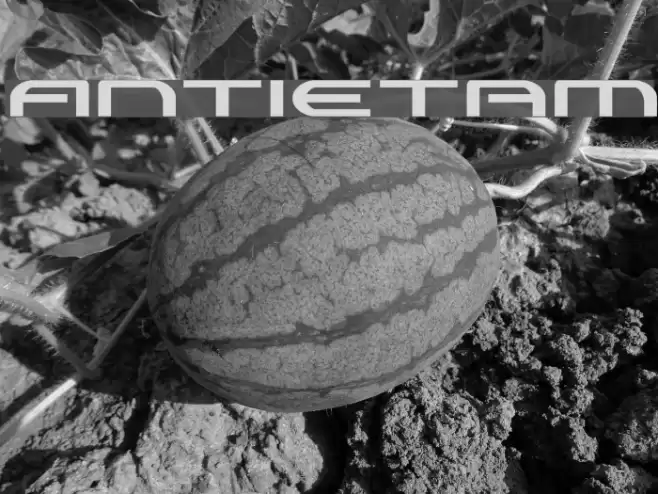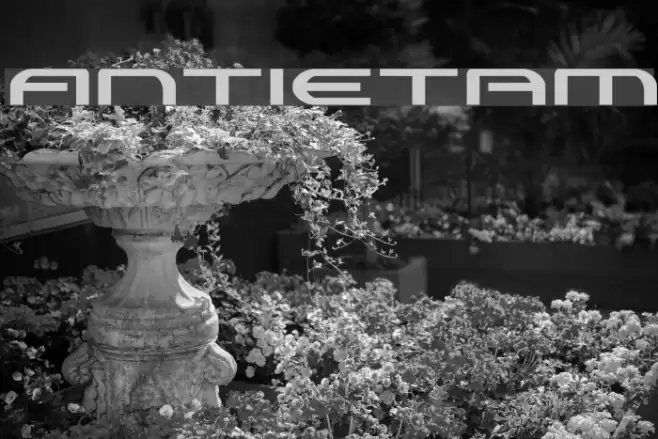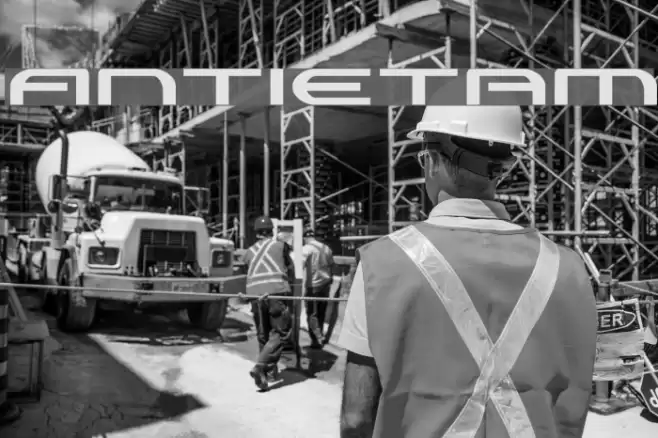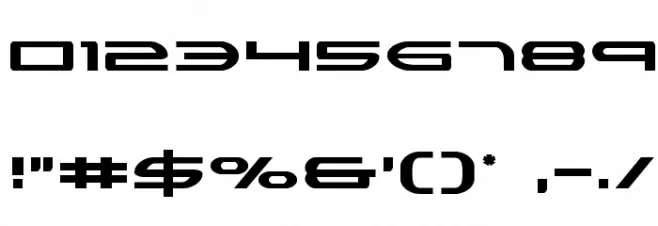
Antietam Font
Antietam Description
This font features a futuristic and geometric design with a sleek, modern appearance. The characters are constructed with a consistent stroke width, giving it a uniform and balanced look. The rounded edges and smooth curves add a touch of softness to the otherwise technical style, making it suitable for a variety of applications. The uppercase and lowercase letters maintain a cohesive style, while the numerals and special characters are designed to complement the overall aesthetic. This font is ideal for projects that require a contemporary and innovative feel.
A futuristic and geometric font with consistent stroke width and rounded edges from Uncategorized fonts.
- Proposed Projects: Ideal for technology branding, sci-fi themed designs, modern advertising, and digital interfaces.
- Use Case: Headlines, Logos, Digital interfaces